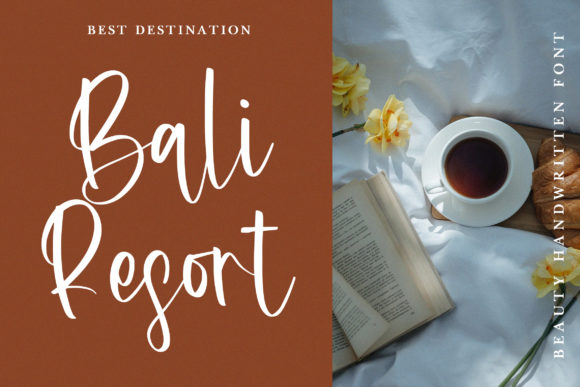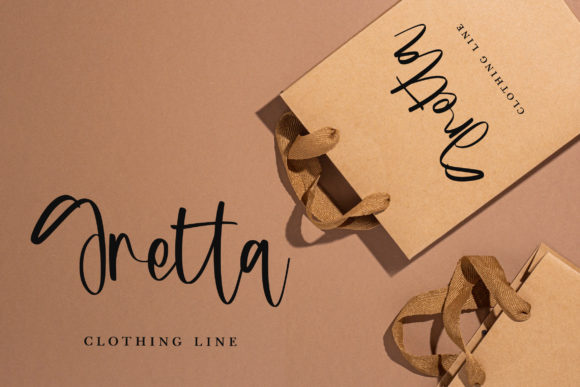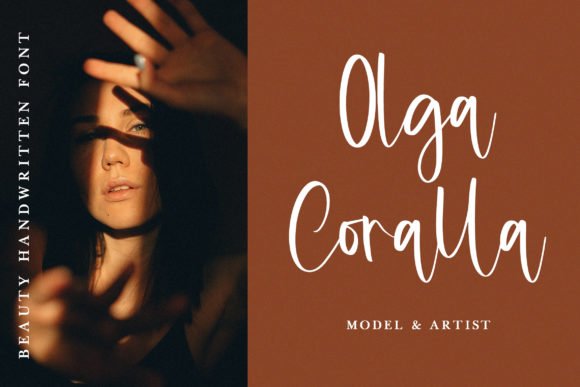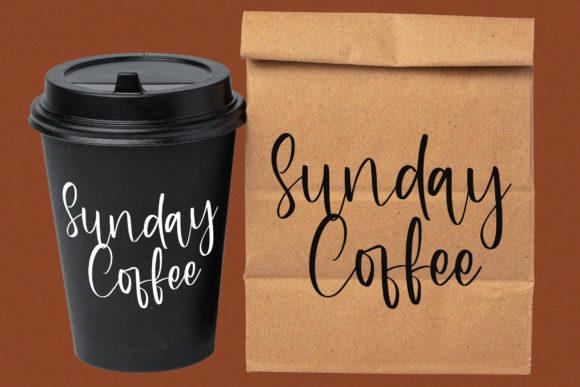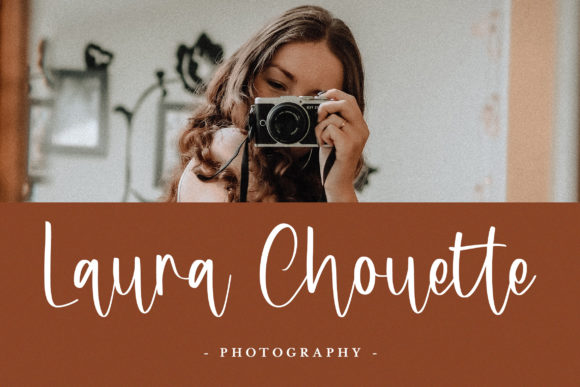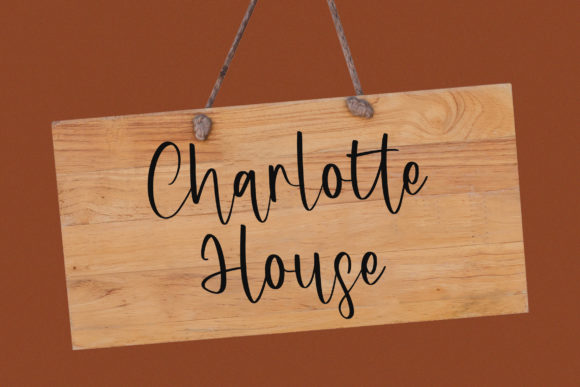
Introduction to Destiny Bestie Font
Destiny Bestie is a free-flowing script font created for packaging products, invitation cards, flyers, mockups, event posters, and anything else that requires high-quality vibes.
It has a beautiful and balanced character, that fits well with the large design pool .
Key Features of Destiny Bestie Font
Why Choose Destiny Bestie Font?
Destiny Bestie Font offers exceptional quality and versatility, making it a valuable addition to your design toolkit. Whether you’re creating for personal projects or commercial use, Destiny Bestie Font delivers professional results.